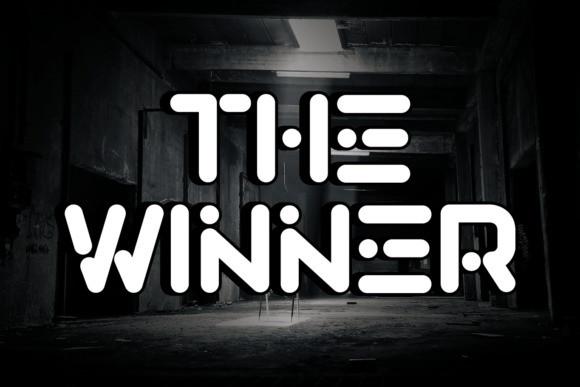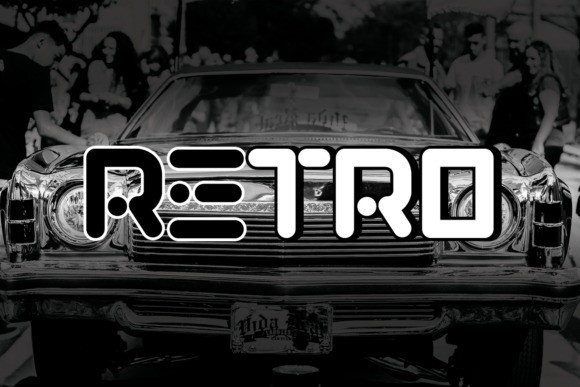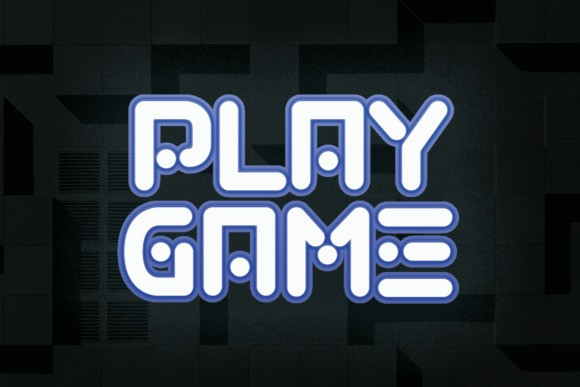
Play Game Font
Play Game Font is a bold and cool display font that looks so modern and futuristic. Add this neon font to your creative ideas, and notice how it makes them stand out!